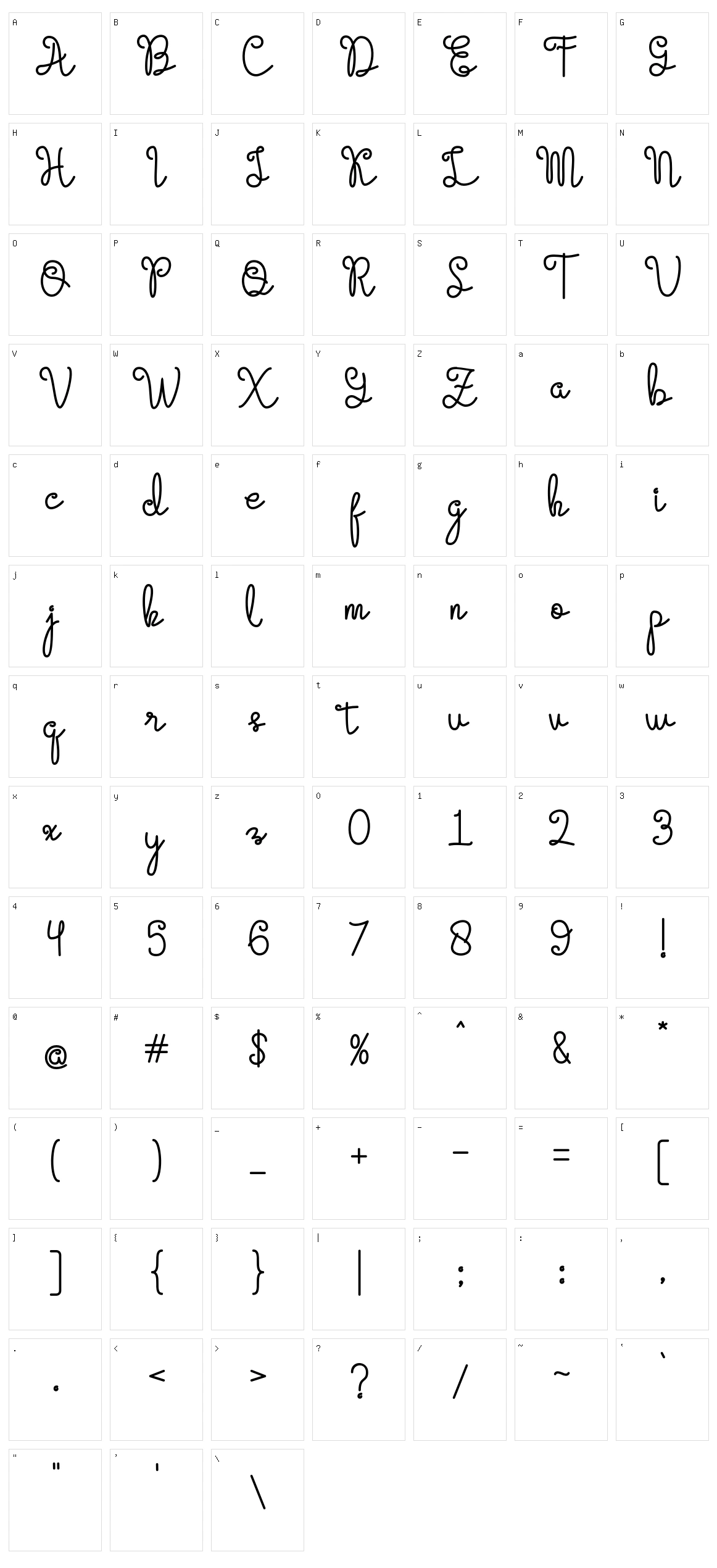
Evangetta Minimalist Monoline Script
Evangetta is a monoline script font with five weight variations and opentype features.
Beautiful and minimalist handwriting fonts with authentic charm, add a minimalist and elegant feel to any design project.
This is perfect for branding, logos, brochures, business cards, wedding stationary, invitations, and every other design which needs a handwritten touch.